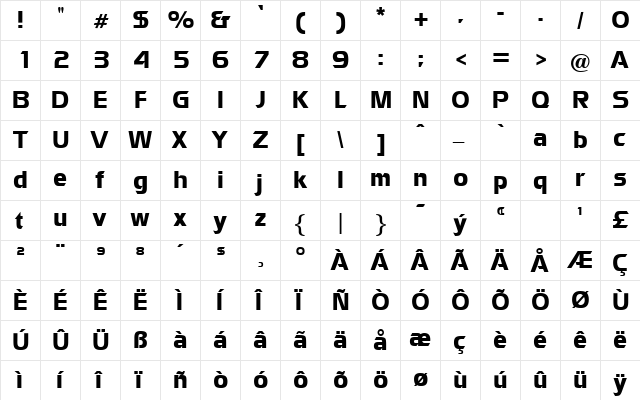
Watford Regular
Design Context for Watford Typeface
Watford is a composed and adaptable typeface that performs quietly and consistently across a wide range of design contexts.